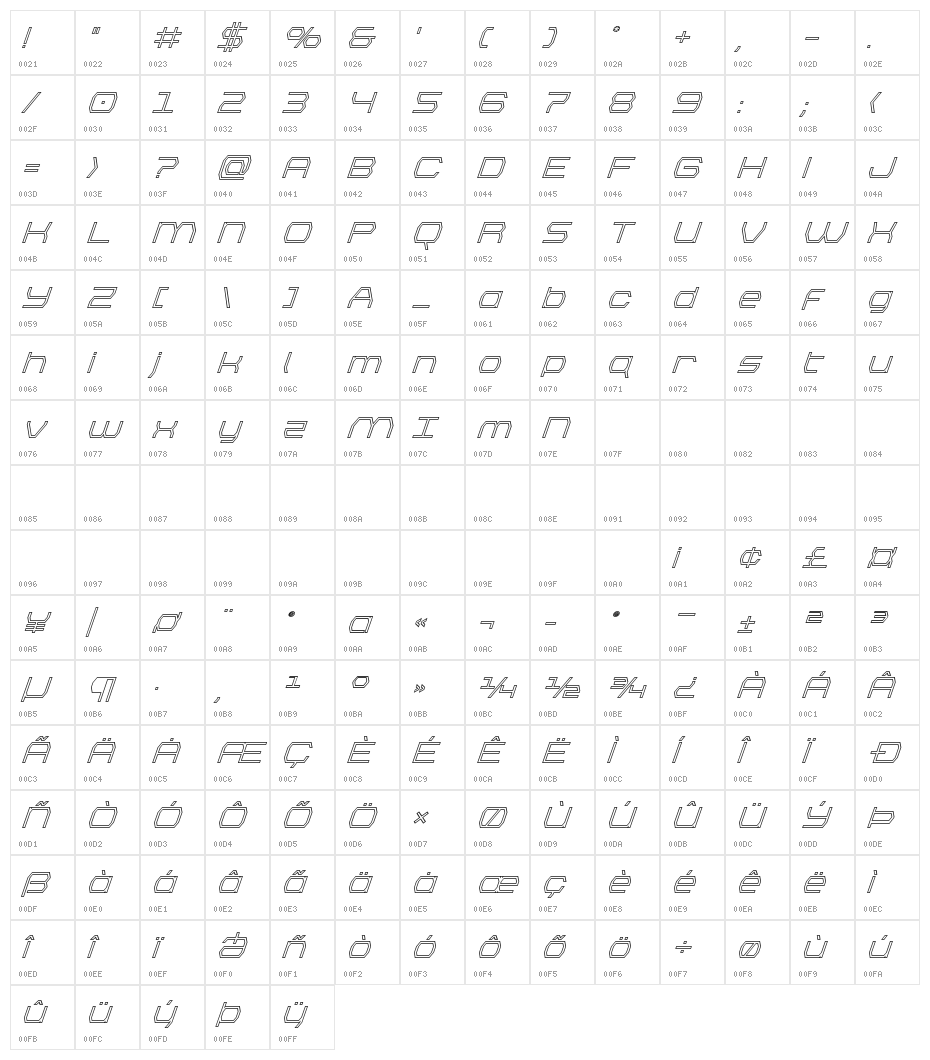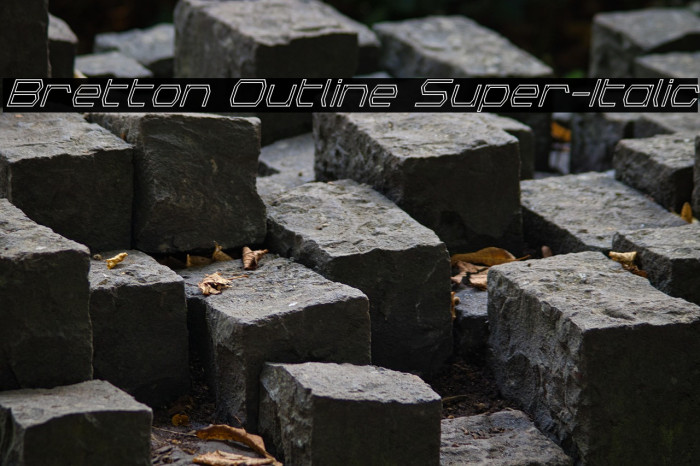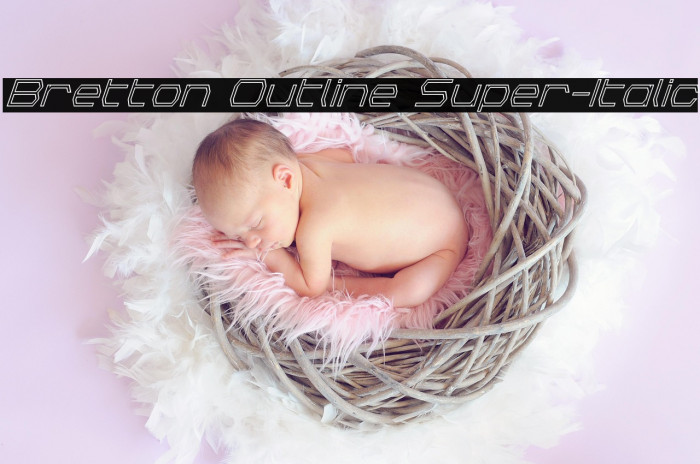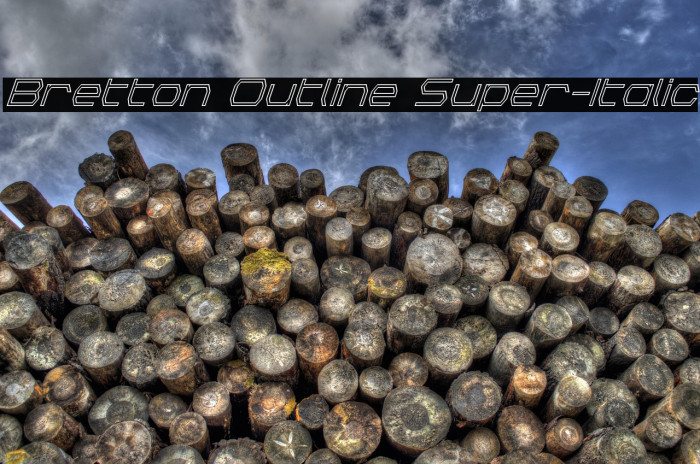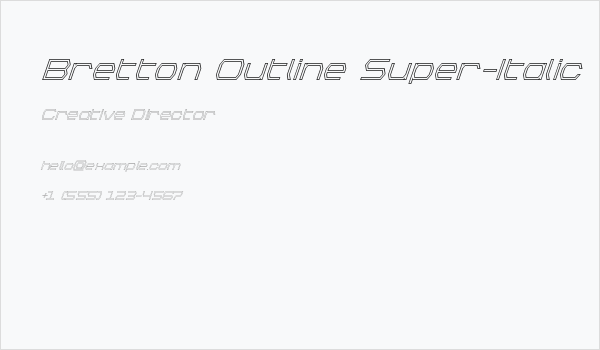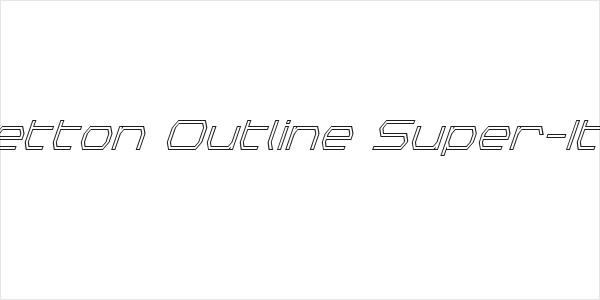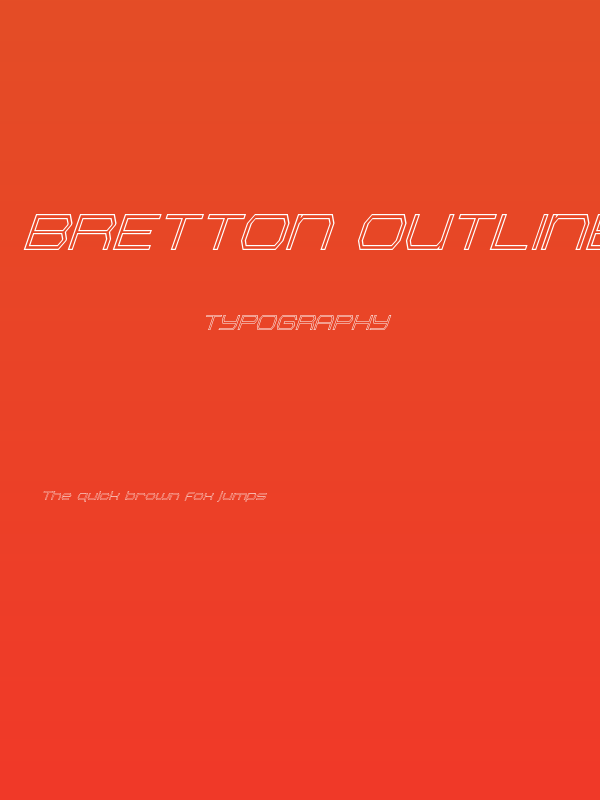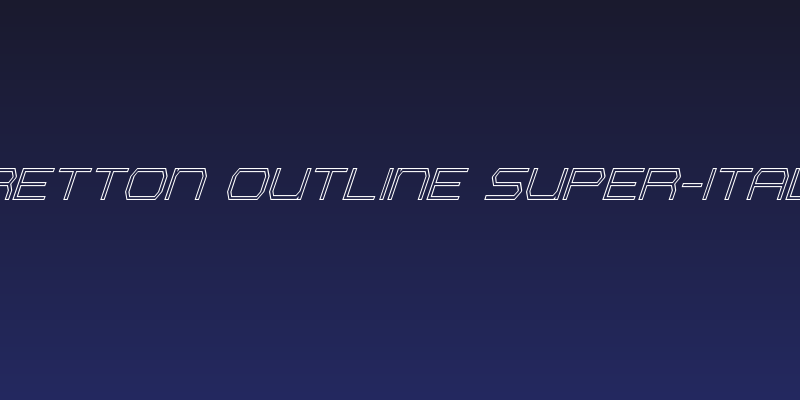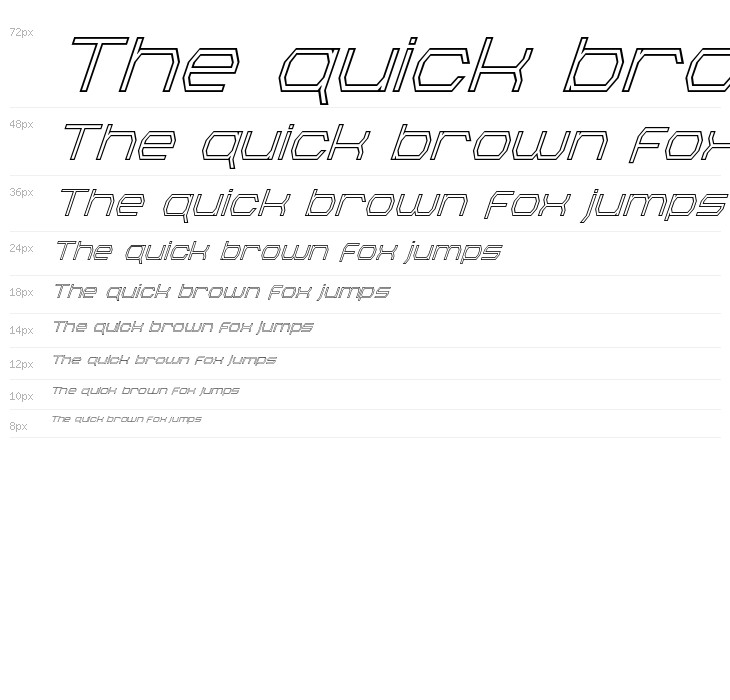
Bretton Outline Super-Italic Font
Bretton Outline Super-Italic Description
This font features a distinctive outline style with a geometric and angular design. The characters are italicized, giving them a dynamic and forward-leaning appearance. Each letter is crafted with precision, showcasing clean lines and sharp edges. The uppercase and lowercase letters maintain a consistent style, while the numerals and special characters complement the overall aesthetic. The font's outline nature provides a modern and futuristic feel, making it suitable for creative and bold design projects.
| Proposed Projects | Ideal for futuristic branding, tech-oriented designs, posters, and digital media. |